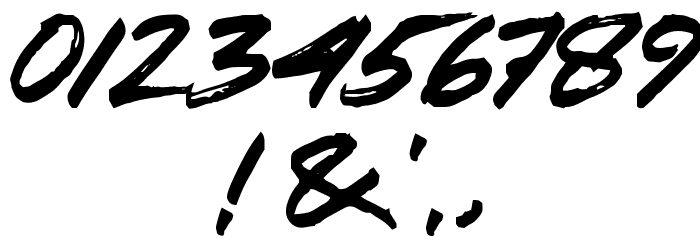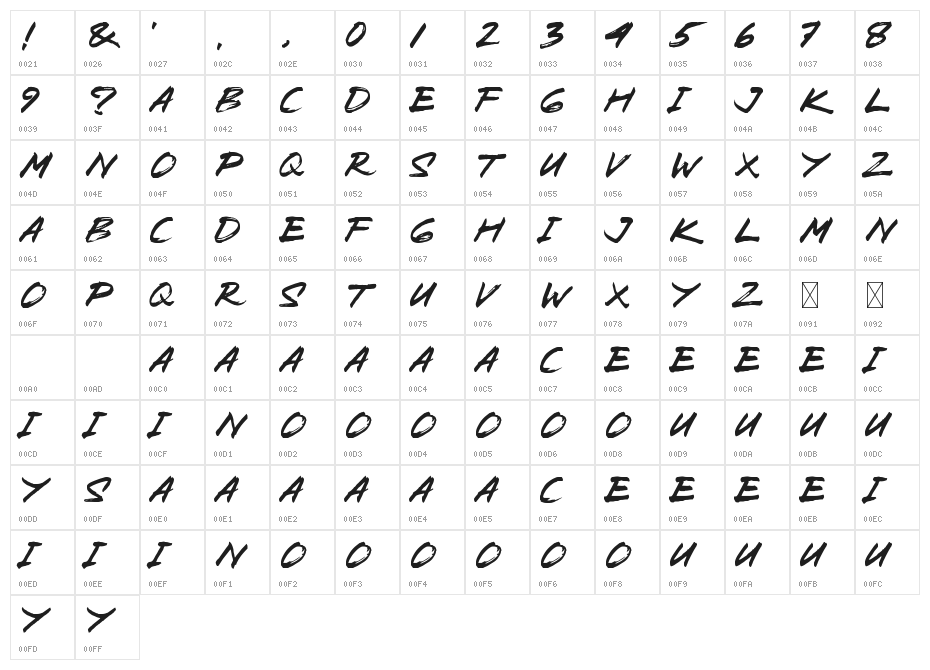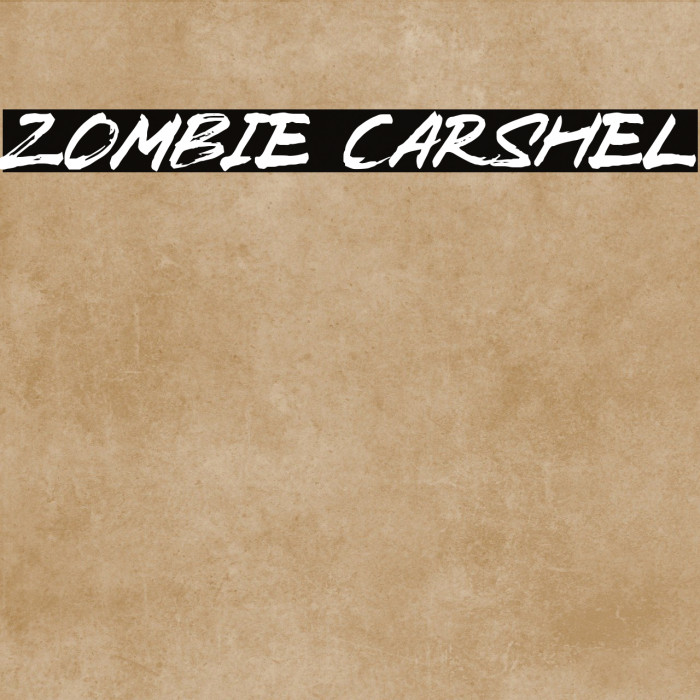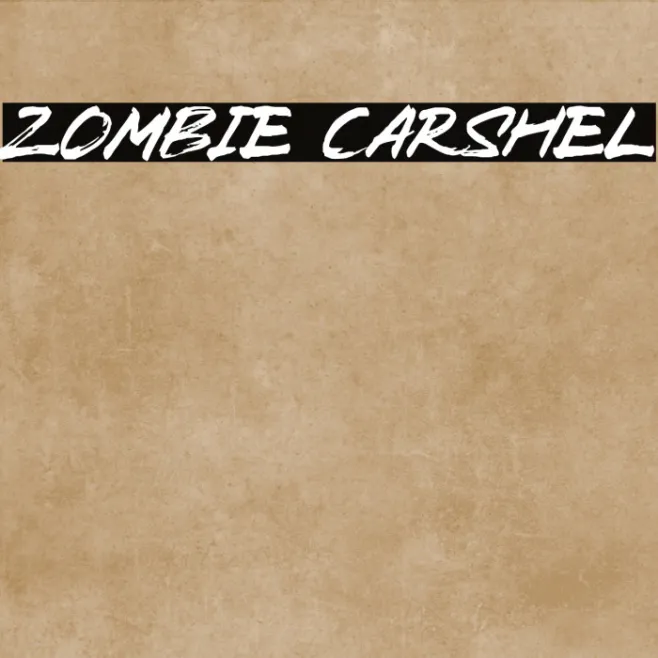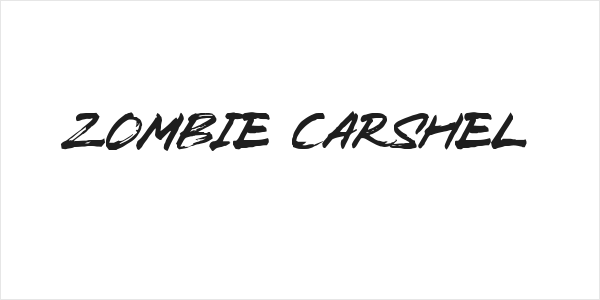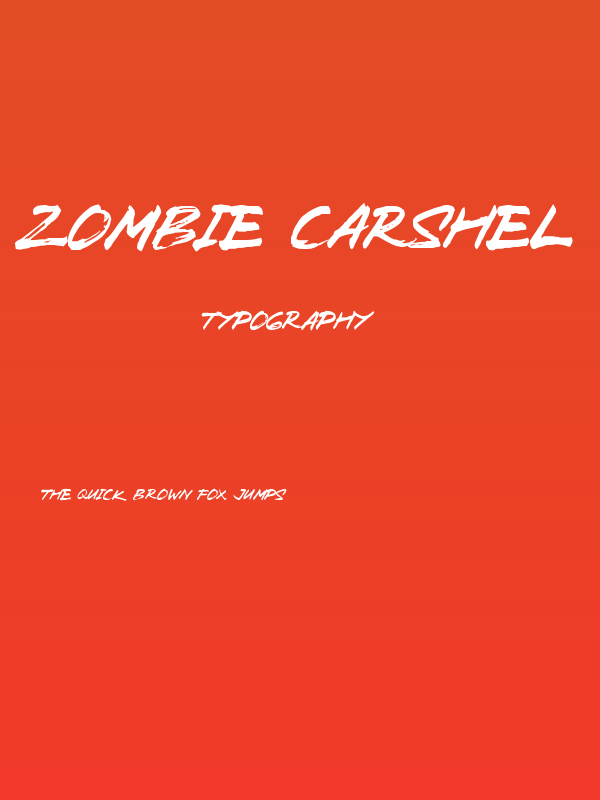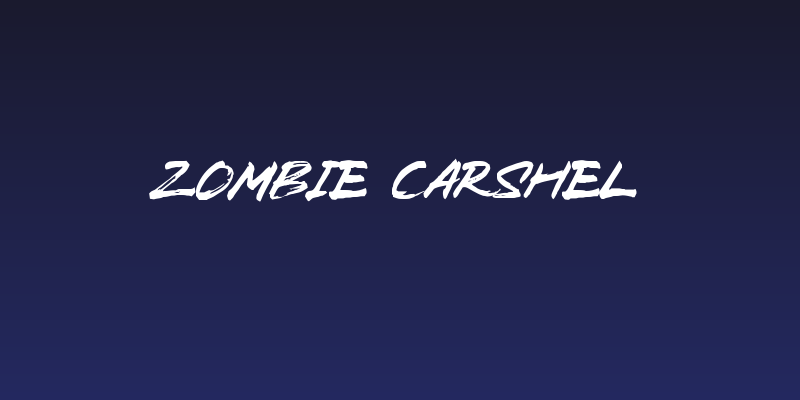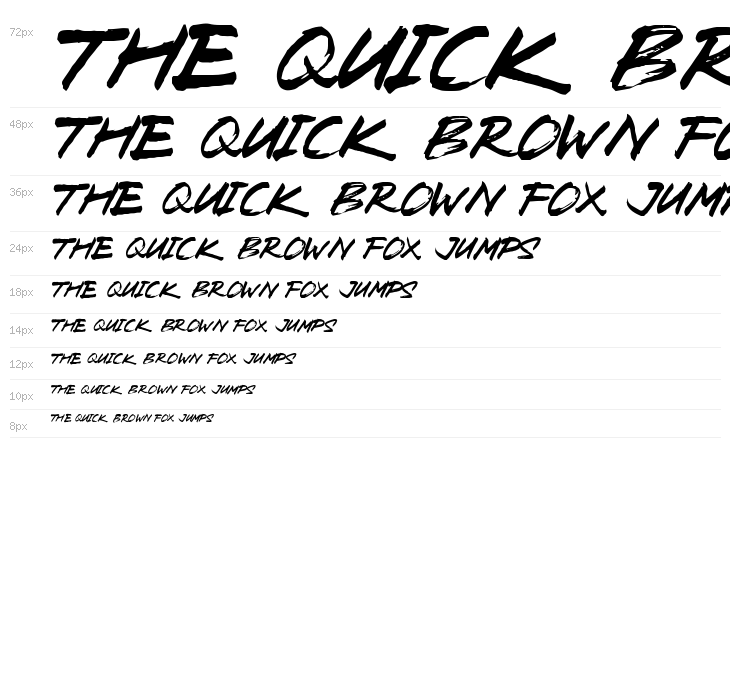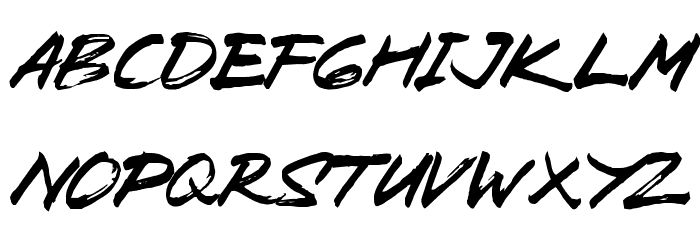
Zombie Carshel Font
Zombie Carshel Description
This font exudes a bold and energetic style, characterized by its brush-like strokes and dynamic flow. The uppercase and lowercase letters maintain a consistent, lively rhythm, giving the impression of movement and spontaneity. The numbers and special characters follow the same expressive style, making them stand out with their artistic flair. The overall appearance is both modern and edgy, suitable for projects that require a strong visual impact. The strokes vary in thickness, adding a sense of depth and texture to the text, while the spacing between characters is relatively tight, enhancing the cohesive look.
Proposed ProjectsIdeal for posters, album covers, branding, and any design needing a bold, artistic touch.